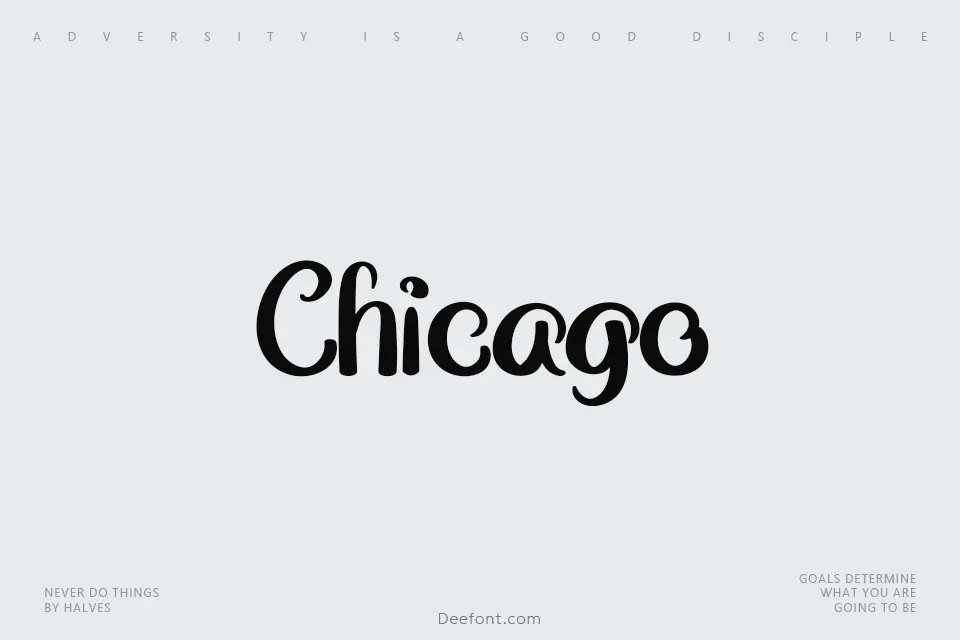
Chicago Font
Chicago Font is a cute and chic script font. It embodies playfulness and authenticity and is the perfect choice for any project that requires a joyful touch.